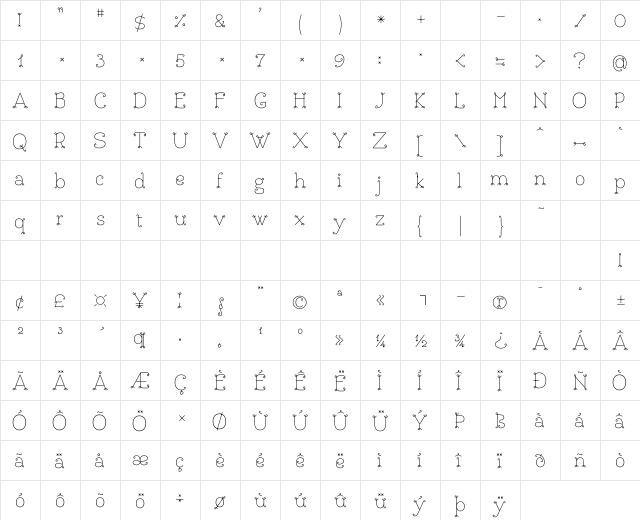
BouclettesDemo Medium
Design Context for BouclettesDemo Typeface
BouclettesDemo takes a measured approach to typography — its balanced proportions and neutral character make it a reliable workhorse for both digital and print work.